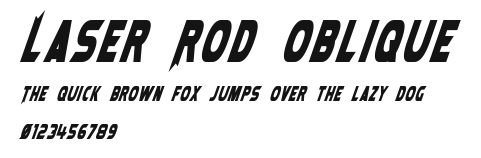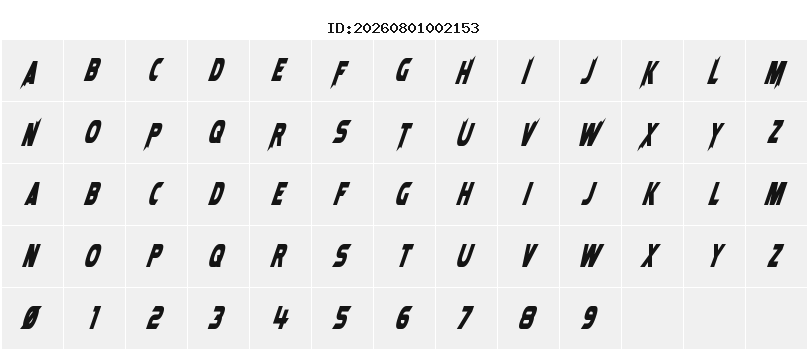
• Font Name: Laser Rod Oblique
• Designer: Neale Davidson
About Laser Rod Oblique.ttf
Laser Rod Oblique.ttf is a modern, elegant sans-serif font designed for ultimate readability and visual harmony. Perfect for branding, headlines, web design, and print materials.